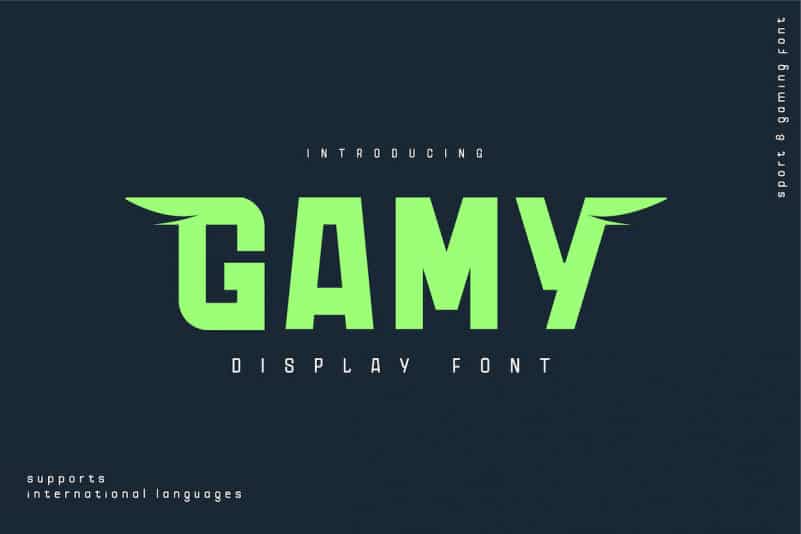
10 Font Bundle Futuristic Font
10 Font Bundle includes 10 full font packages of our all time best Futuristic fonts. The font styles reach from clean to very edge shape and work perfect for logos, product game design and print merchandise with futuristic style.